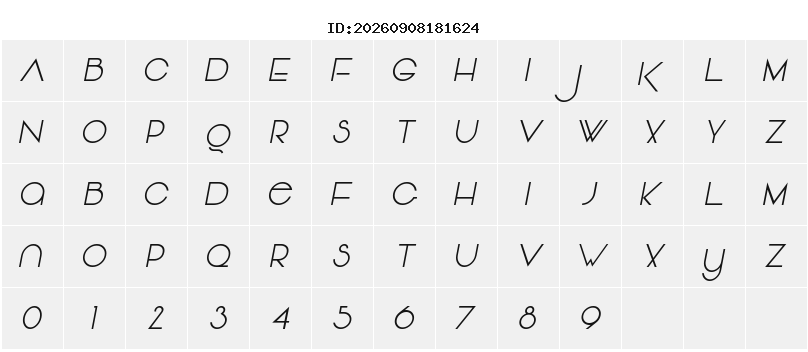
Vonique 64 Preview
• Font Name: Vonique 64
• Font Style: Italique
• Full Font Name: Vonique 64 Italic
About Vonique 64.ttf
Vonique 64.ttf is a modern, elegant sans-serif font designed for ultimate readability and visual harmony. Perfect for branding, headlines, web design, and print materials.